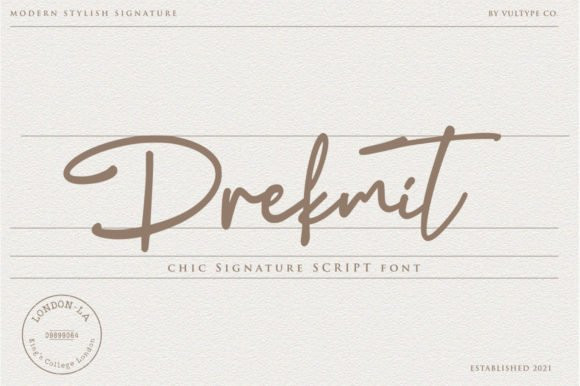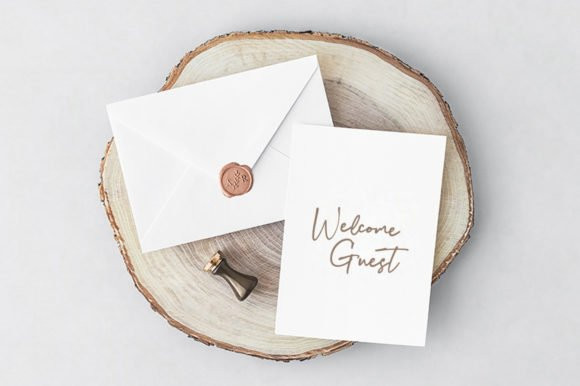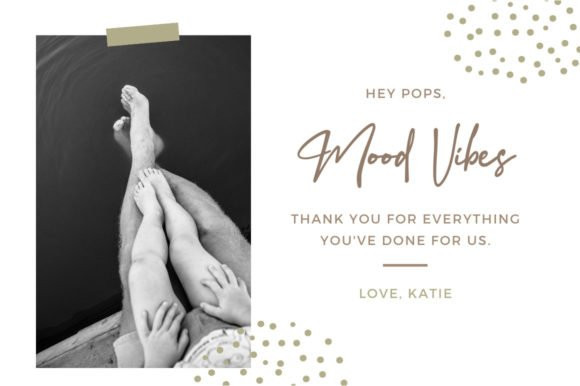
Drekmit Font
Drekmit is a stylish and incredibly elegant script font. It looks stunning on wedding invitations, thank you cards, quotes, greeting cards, logos, business cards and every other design which needs a handwritten touch.